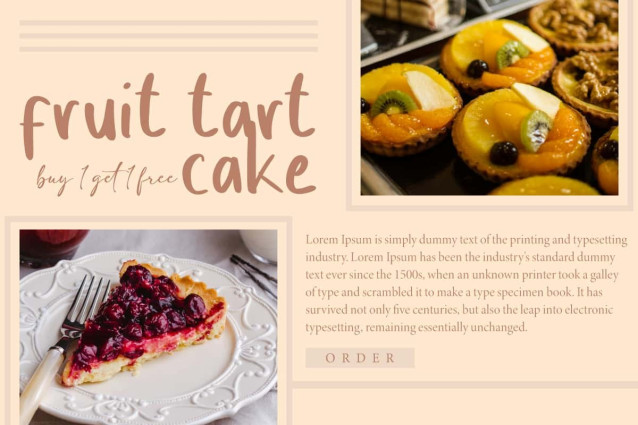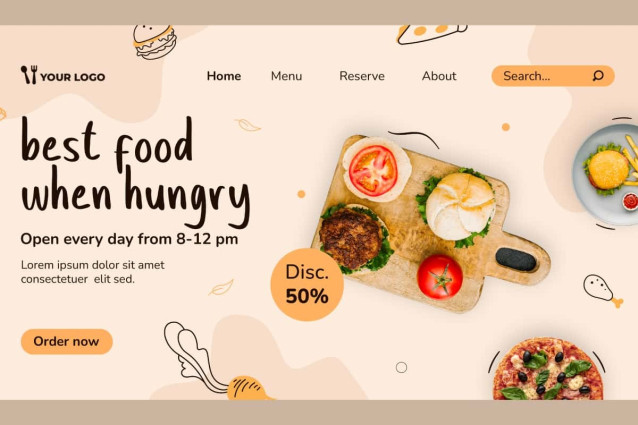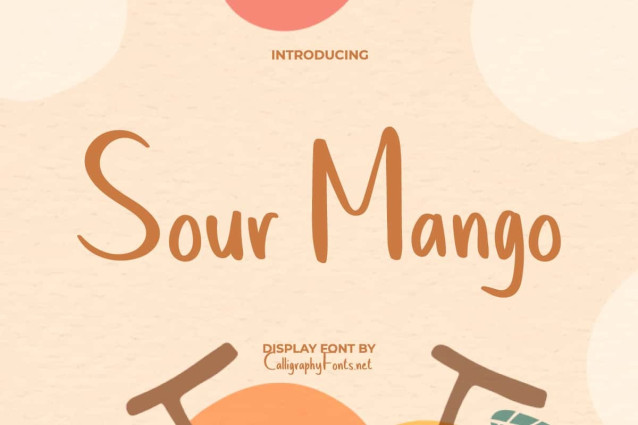
Sour Mango Font
Sour Mango Font is a delightful script display font with a touch of natural charm. This sweet and refreshing handwritten font has soft yet irregular line strokes, making it create an interesting look and easy to read. This font is perfect for banners, billboard, blogs, brand logo, brochure, covers, flyer, greeting cards, headers, invitation, mockup, poster, quotes, sign board, stationery, sticker label, template, title, website, and many more.
Sour Mango Font brings a personal touch and versatile warmth to a variety of creative projects, ensuring your message stands out with fun style. This font is perfect for bakery and pastries, cafes, content creator, creative industries, dessert chef, digital marketing, fresh fruits wholesalers, fruit juice stall, graphic designer, handicraft, illustration, publisher, restaurant, toys, transport advertising media, and many more.